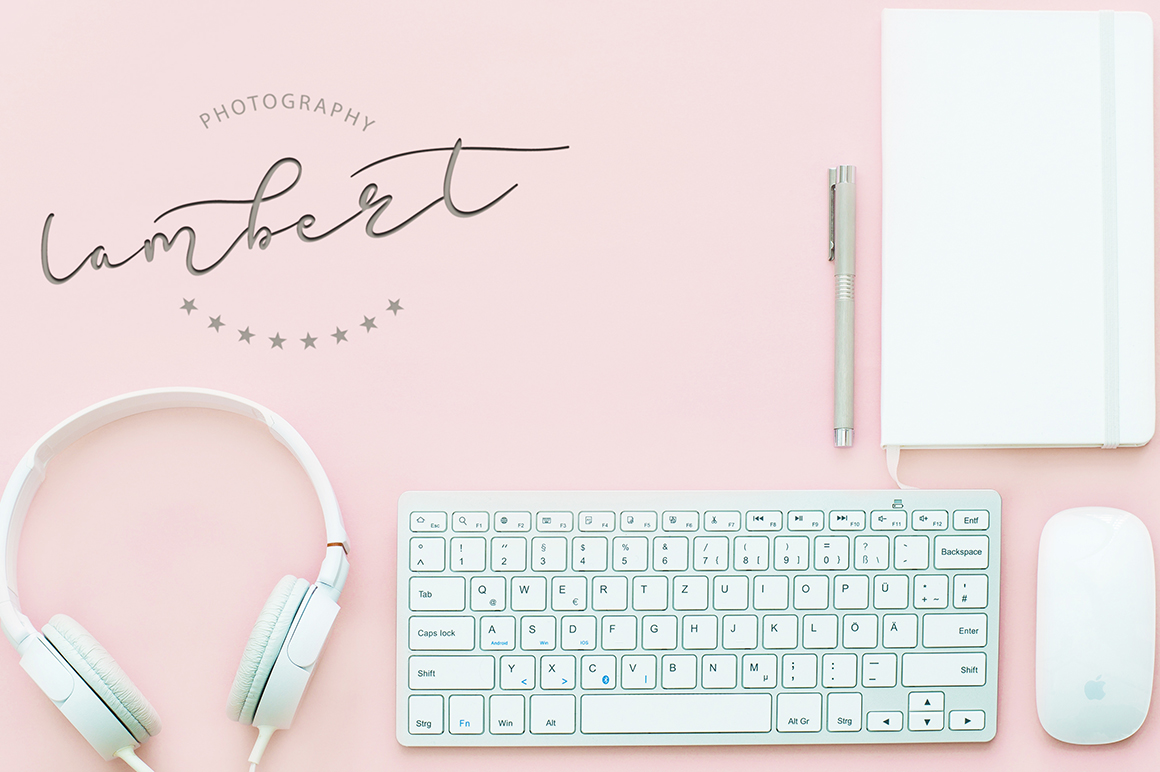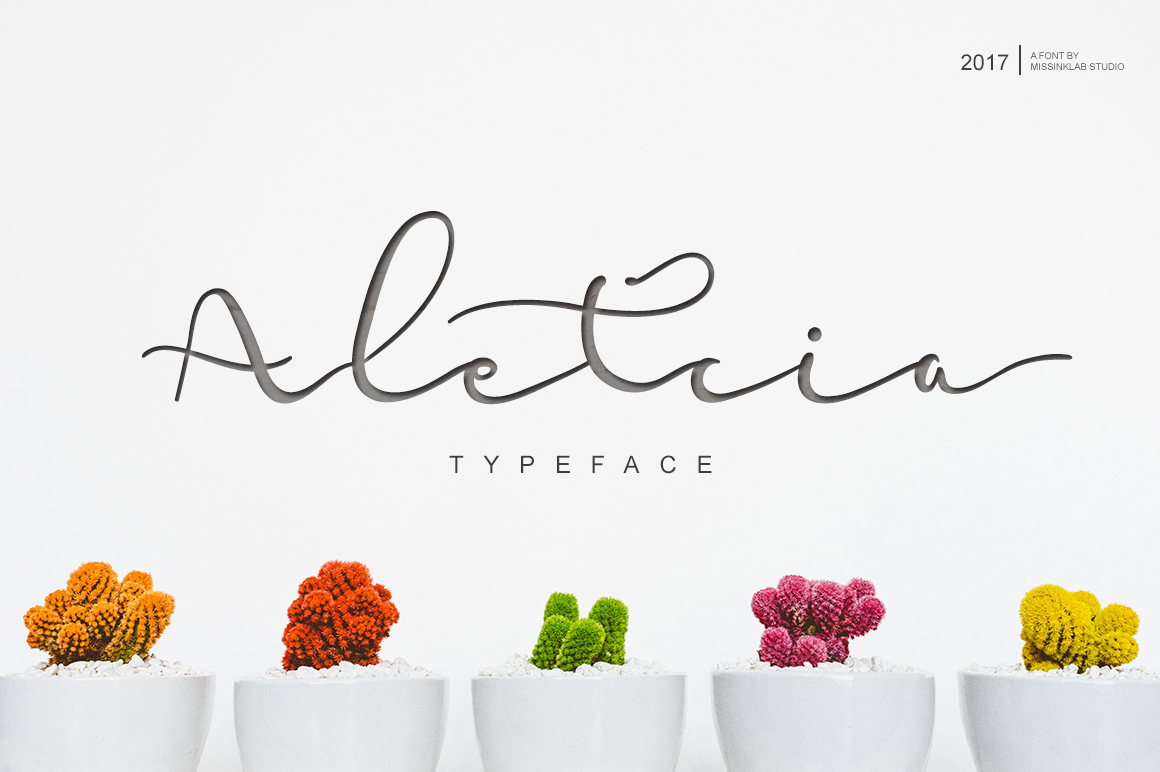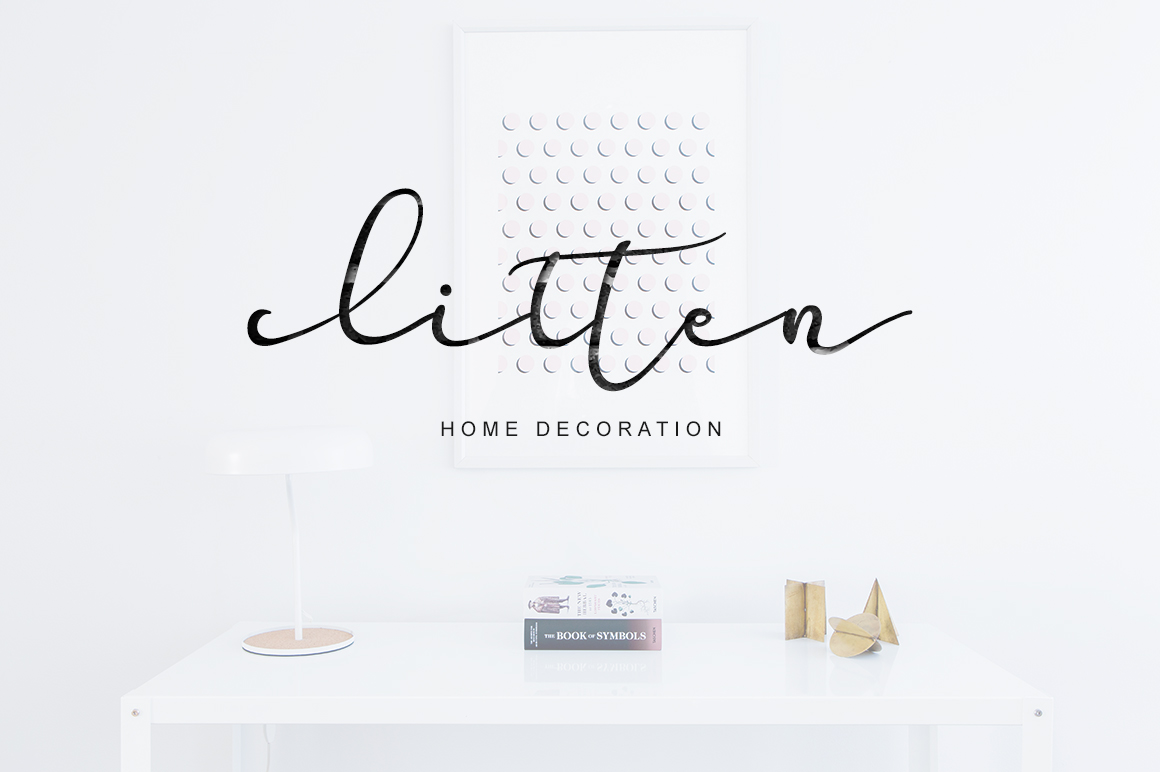
Aletcia Free Font
Aletcia is a beautiful script free font for commercial use. With modern script style this font will be perfect for many different design projects like : quotes, blog header, posters, wedding, branding, logos, fashion, apparel, letters, invitations, stationery, etc.
so artistic and love the flow